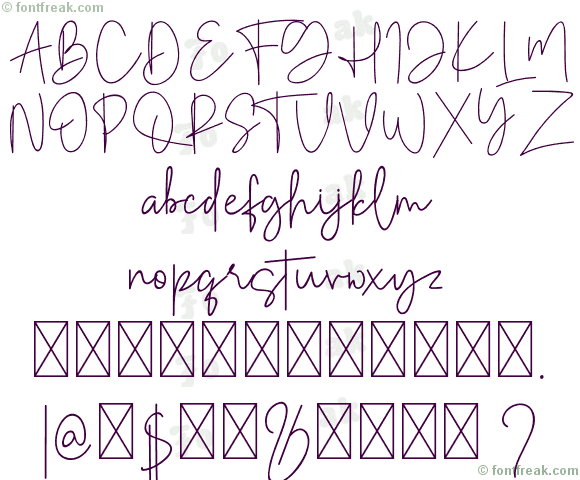
Golden Mind
Golden Mind by Rantau Type is a captivating display font that embodies a blend of elegance and creativity. Released in 2019, this font features a unique script style with a casual yet sophisticated flair, making it perfect for a variety of design projects. The strokes exhibit a moderate weight, providing a balanced contrast that enhances readability while maintaining an artistic touch. The flowing lines and graceful curves are complemented by ample spacing, allowing each letter to breathe and create a harmonious look. Decorative elements are subtly integrated, adding personality without overwhelming the overall aesthetic.
This font is versatile and can be effectively used in numerous applications. It shines in wedding invitations, where its elegant script can evoke romance and charm. For branding purposes, Golden Mind is an excellent choice for small business owners looking to create a memorable logo that stands out. Additionally, it works beautifully on restaurant menus, lending a touch of sophistication to the dining experience. Content creators will find it useful in social media graphics, where eye-catching typography can enhance engagement and appeal. Movie posters also benefit from its unique character, drawing viewers' attention with its dynamic presence.
The target audience for Golden Mind includes graphic designers, small business owners, and content creators who appreciate the fusion of artistry and functionality in typography. It is an ideal choice for those seeking to add a personal touch to their projects while maintaining professional quality.
What sets the Golden Mind font apart is its ability to convey a sense of warmth and creativity, making it a standout choice in the world of typography. With a Golden Mind font free download available, designers can easily incorporate this stunning typeface into their work, enhancing their projects with its distinctive flair.